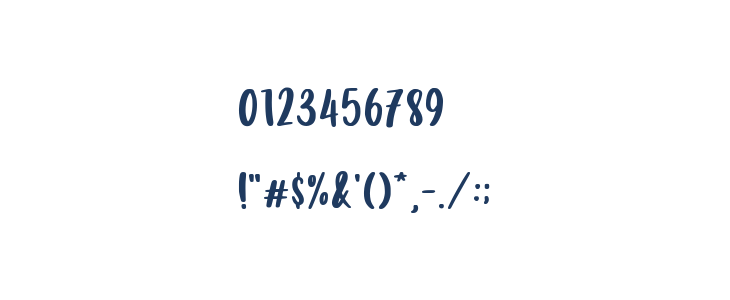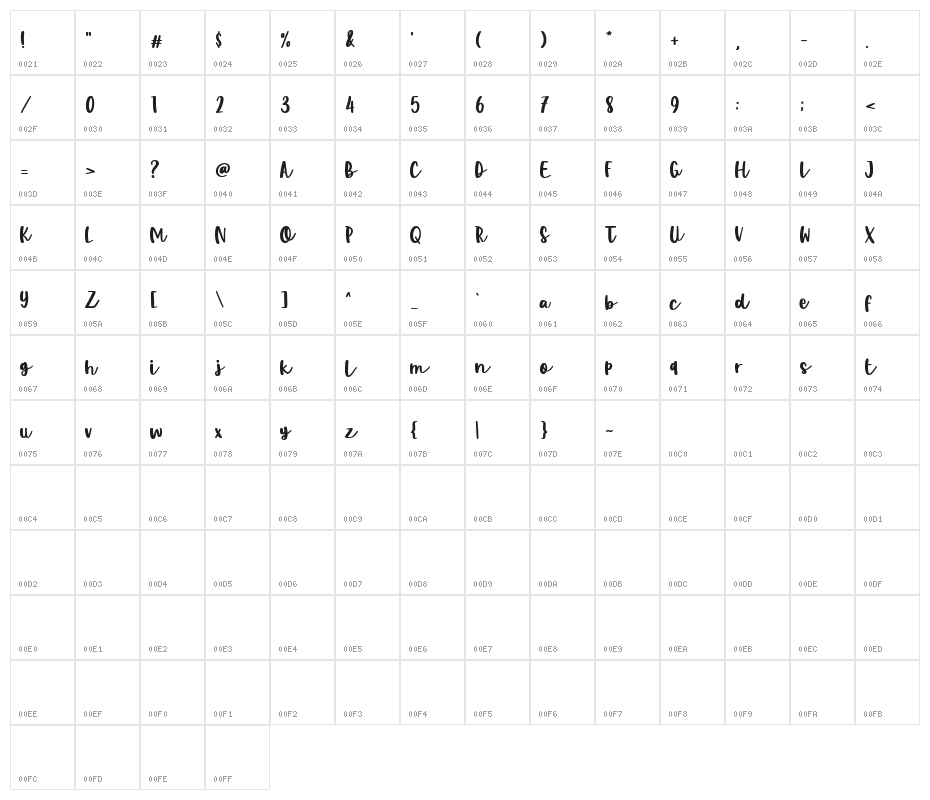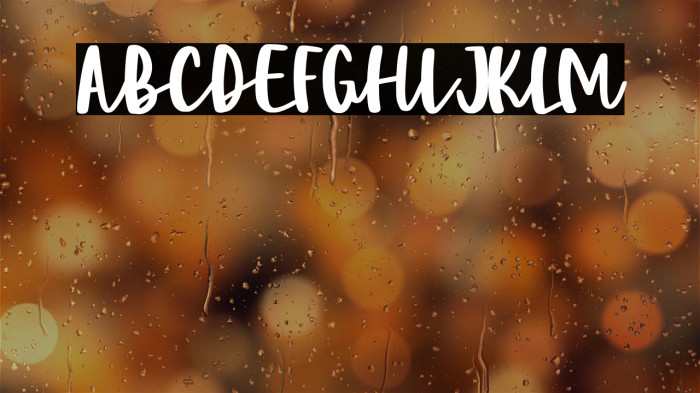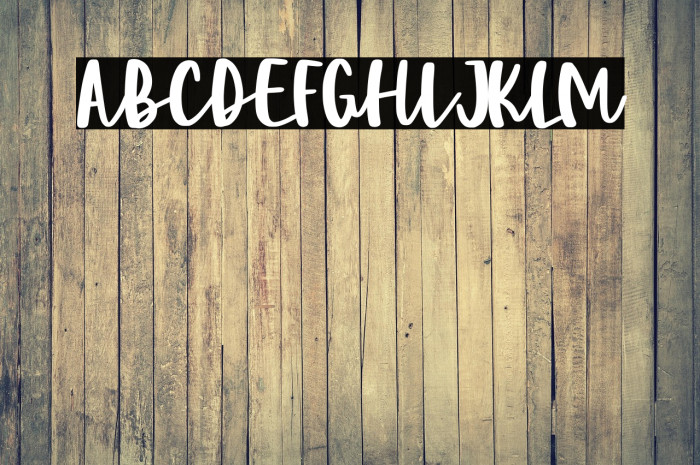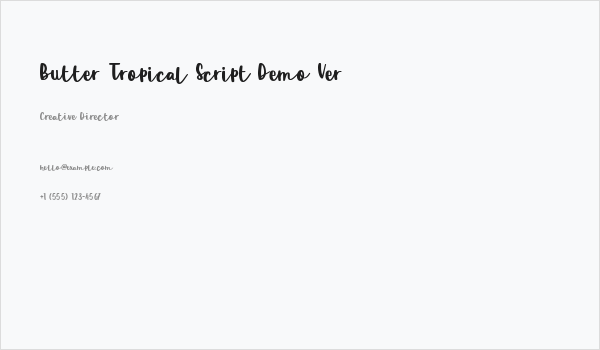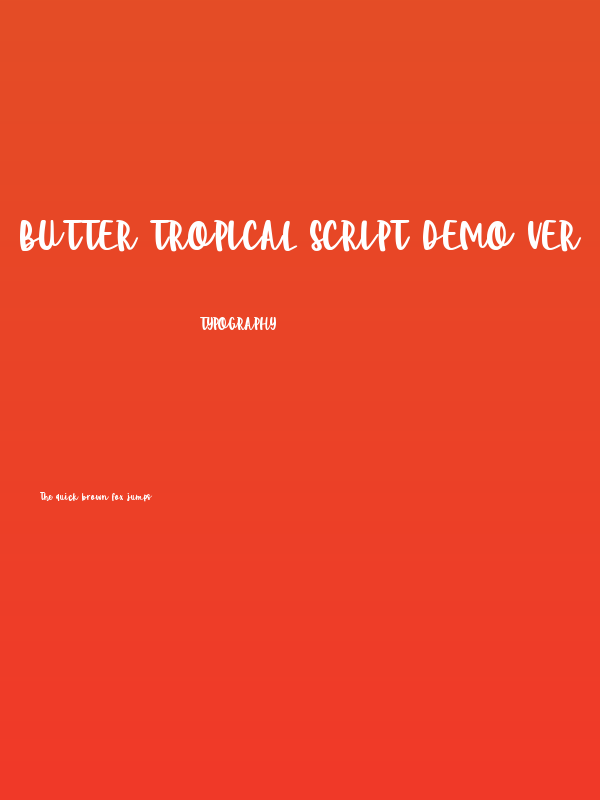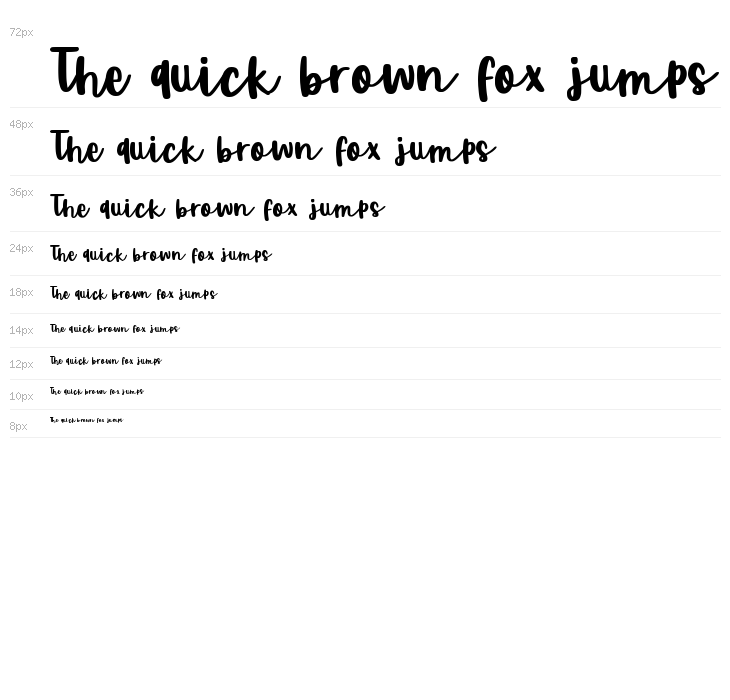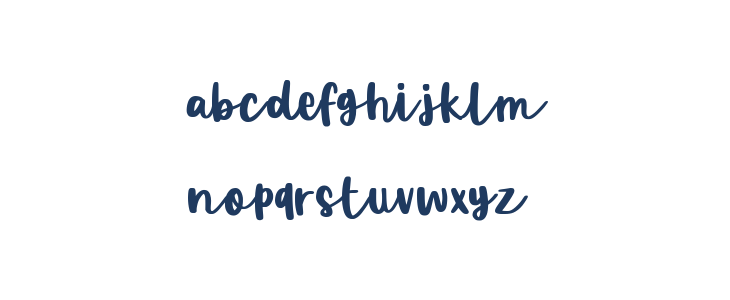
Butter Tropical Script Demo Ver Font
Butter Tropical Script Demo Ver Description
This font features a lively and playful script style, characterized by its bold and flowing letterforms. The uppercase letters are slightly more structured, while the lowercase letters exhibit a more fluid and cursive appearance. The strokes are thick and consistent, giving the font a robust and confident look. The numbers and special characters maintain the same playful aesthetic, ensuring a cohesive appearance across all text. This font is ideal for projects that require a touch of whimsy and creativity, such as invitations, greeting cards, or branding materials that aim to convey a friendly and approachable tone.